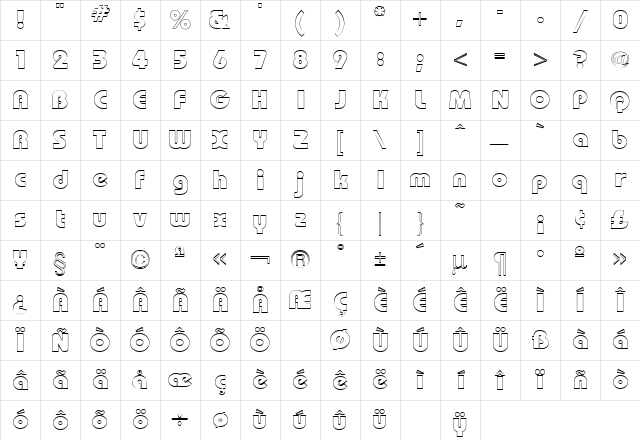
Bauhaus Heavy Outline Regular
Design Context for Bauhaus Heavy Outline
Bauhaus Heavy Outline is built around its visual character rather than neutral utility - its distinctive forms are designed to make an impression at display sizes.
Font Pairing: Pair with a clean neutral sans-serif for body copy to let Bauhaus Heavy Outline's character lead without overwhelming the composition.
Pro Tip: Use Bauhaus Heavy Outline exclusively at display sizes - it was designed to be seen, not read at length. Let a neutral companion handle body copy.